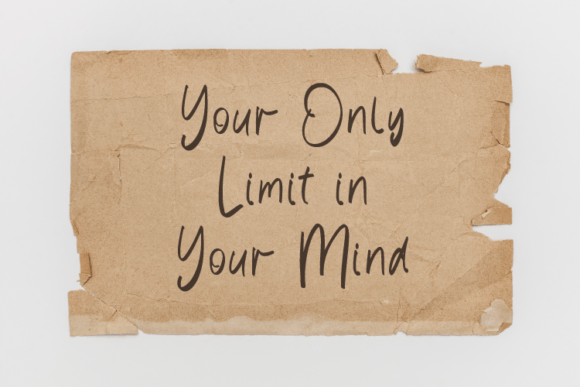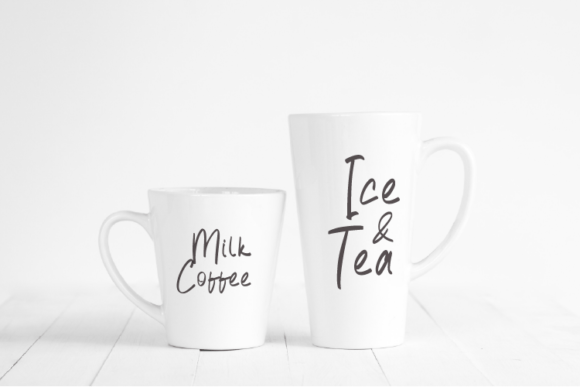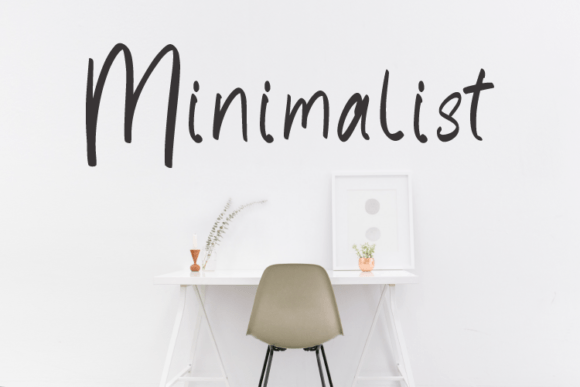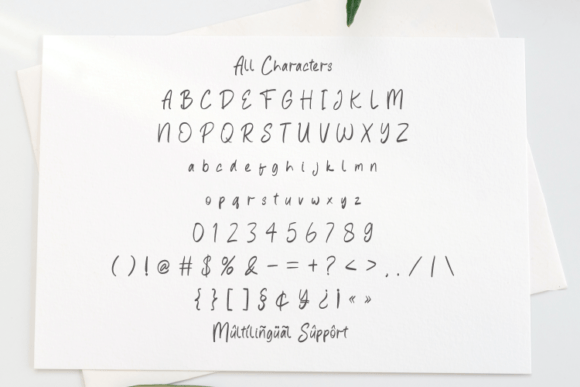
The Sweetness of February Notes Font: A Designer’s Delight
I still remember the time I was working on a wedding invitation project, and I just couldn’t find the perfect font to capture the romantic and whimsical feel my client was looking for. I scoured through font libraries, but nothing seemed quite right. That was until I stumbled upon February Notes Font. It was love at first sight! 💕
This sweet and delicate handwritten font has become a staple in my design toolkit, and I’m excited to share my experience with you. In this article, we’ll dive into the world of February Notes Font, exploring its features, how to use it, and some similar fonts you might love.
An Honest Review of February Notes Font
- ✨ Delicate and dainty strokes that exude a sense of romance and whimsy
- ✅ Perfect for a variety of design projects, from wedding invitations to social media graphics
- ✅ Easy to pair with other fonts for a unique and personalized look
- ⚠️ Limited character set, which may not be suitable for projects requiring a wide range of special characters
- ⚠️ May not be the best choice for body text or long-form content due to its delicate nature
The Backstory of February Notes Font
February Notes Font was designed with love and care by a talented font designer who wanted to create a font that would capture the essence of romance and whimsy. Inspired by the beauty of handwritten notes and letters, this font is perfect for designers and crafters looking to add a personal touch to their projects.
Q: What is February Notes Font best used for?
A: February Notes Font is ideal for wedding invitations, cards, and any other design that requires a romantic and personalized touch.
Q: Is February Notes Font available in different languages?
A: February Notes Font may not support all languages, but it does include a range of characters and glyphs to support various languages.